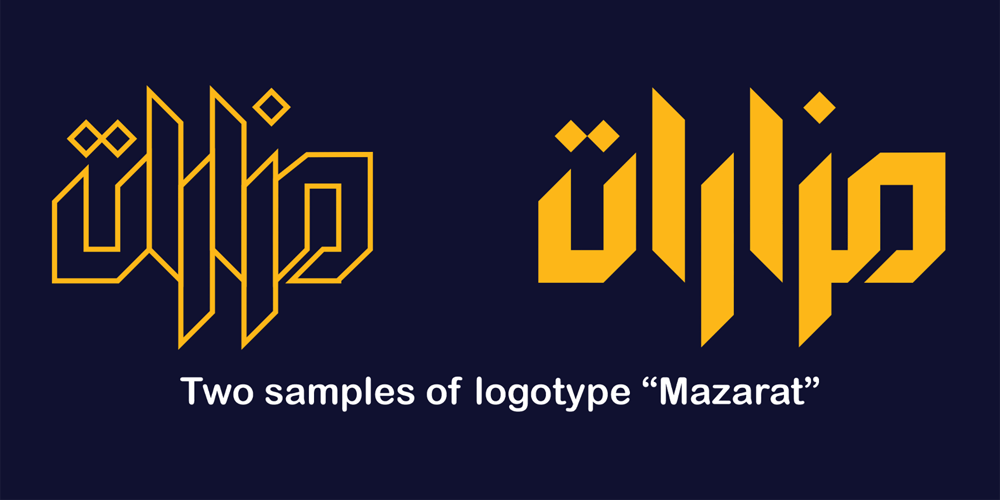
HS Alfaris Font Family was designed by Hasan Abu Afash and published by Hiba Studio. HS Alfaris contains 2 styles and family package options. The idea of this font started while designing a logotype for a company named (Mazarat), consisting of 3D geometric looking shapes and overall structure. After designing several words, I thought of using the design concept of this logo to develop a geometric Kufi font for headline category. All letters of this typeface family were conceived with suitable coordinates and dimensions to create the first weight, bold, before finishing the rest of the letters to support Arabic, Persian, Urdu and Kurdish languages. Another weight was conceived, regular, which was designed closer to light to support applications that require variations in thickness. With a 3D look, this font is a simple and creative addition which can be useful for book titles in addition to a variety of other geometrical constructions projects. It brings new design concept for ends of Jeem, Ayn, Reh and Waw to enhance beauty and harmony and to enrich our previous geometrical font contributions which started with the release of HS Alhandasi and HS Almohandis from HibaStuido.